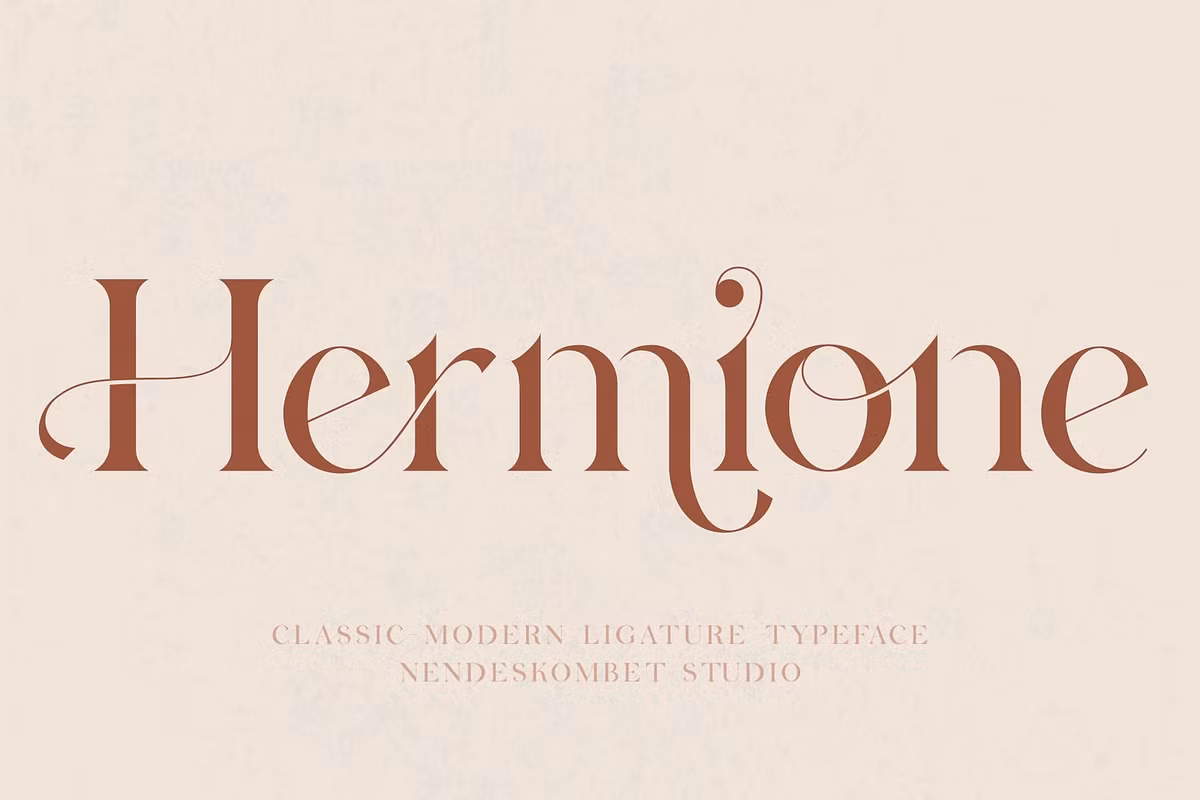
You must purchase this font for commercial use. However, you can download Hermione Classic-Modern Typeface Free Download for testing purposes. Hermione is a refined and versatile typeface that blends classic serif elements with a modern design. It’s perfect for high-end branding, editorial layouts, logos, websites, and professional marketing materials, bringing both elegance and sophistication to your projects.
With its balanced proportions, sleek serifs, and clean lines, Hermione provides a timeless yet contemporary look that ensures readability and style. Whether you're working on a luxury brand, creating an elegant publication, or designing a chic logo, this typeface adds a polished touch to your typography.